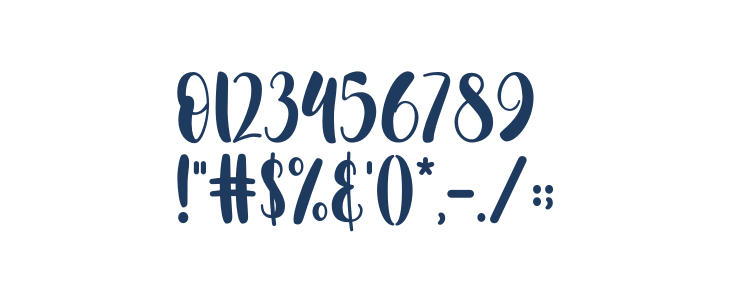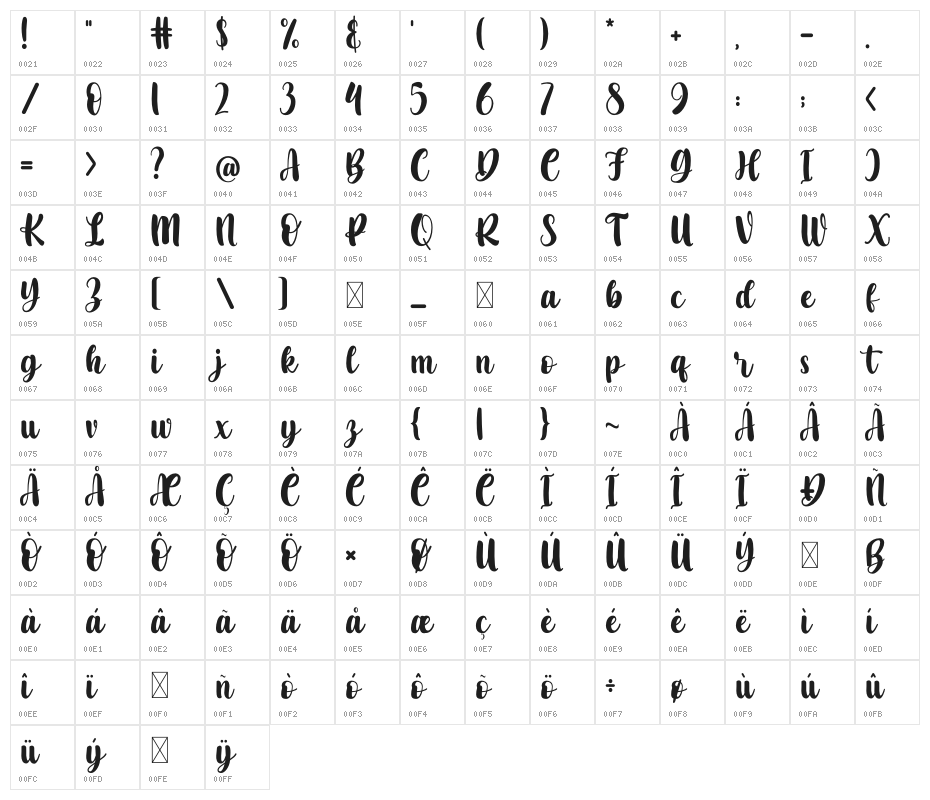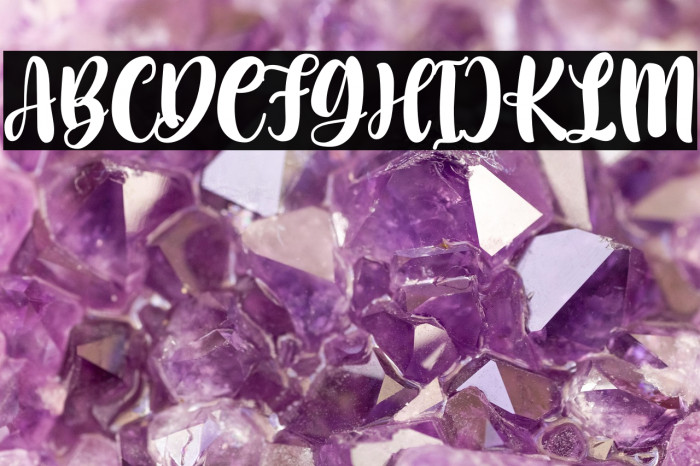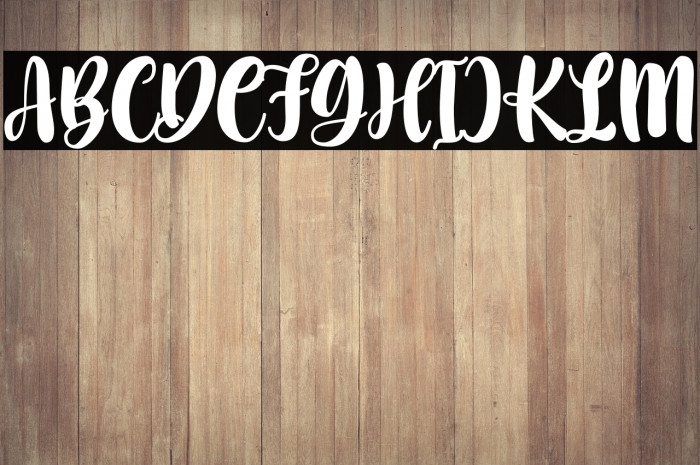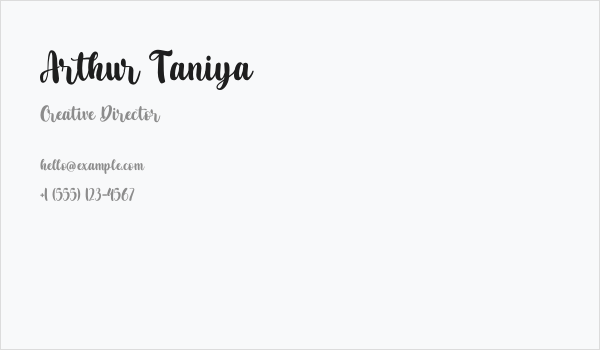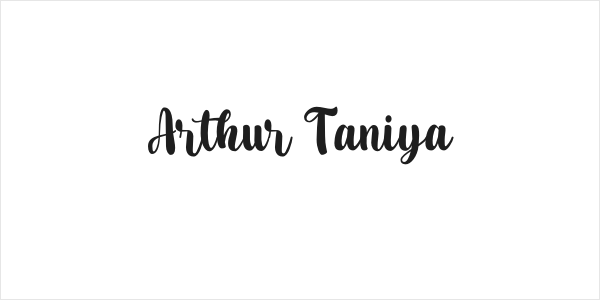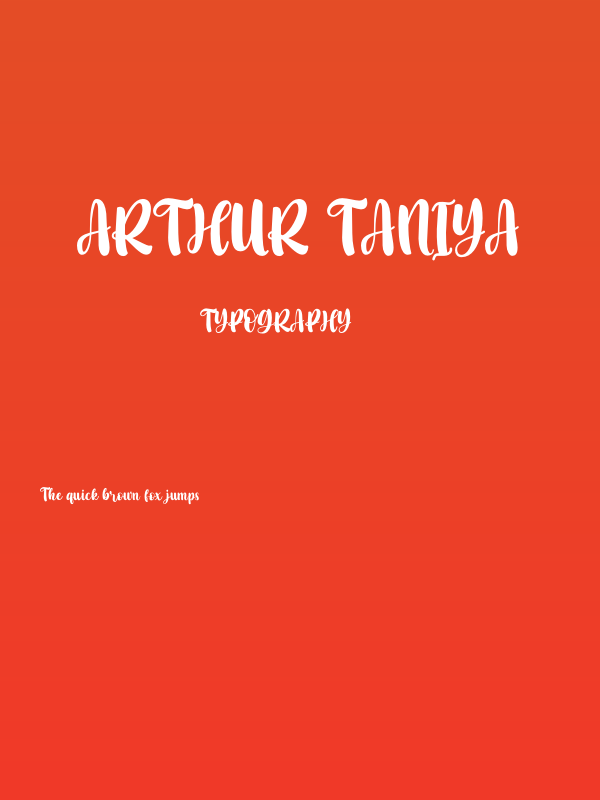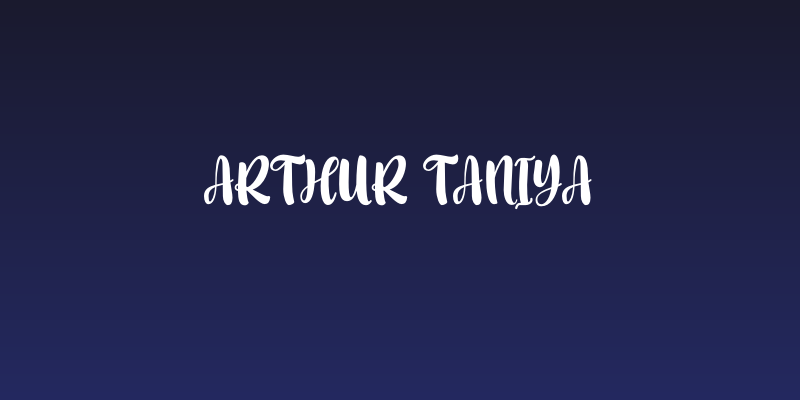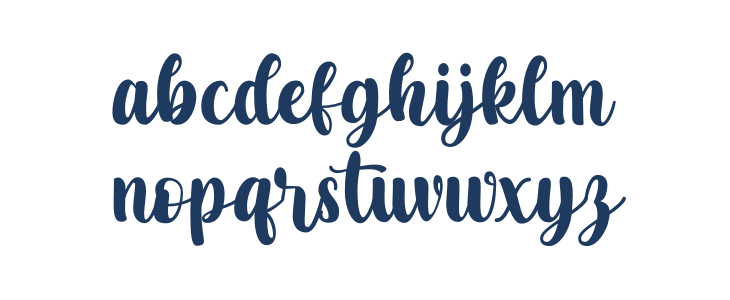
Arthur Taniya Font
Arthur Taniya Description
This font features a bold, flowing script style with a modern flair. The characters are connected, giving it a cohesive and elegant appearance. The uppercase letters are tall and prominent, while the lowercase letters maintain a consistent flow with smooth curves and loops. The numbers are equally bold, matching the overall style of the alphabet. Special characters are designed to blend seamlessly with the letters, maintaining the font's stylish and sophisticated look. The font's thick strokes and smooth transitions make it ideal for creating eye-catching designs.